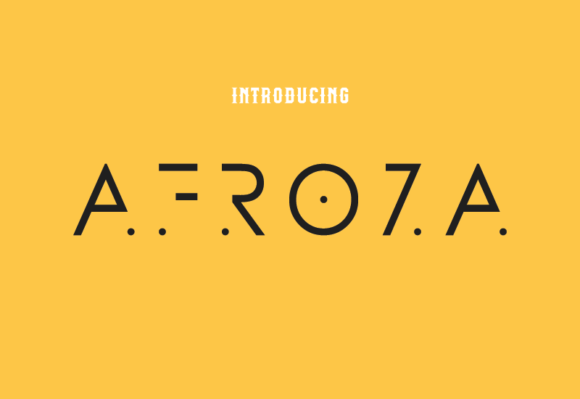
Immerse yourself in the world of Afroza, a sans serif font that's as bold and confident as the creative minds it's designed for. This font is not just a collection of letters; it's a daring dance of contrasts and creativity, a testament to the power of bold decisions. With Afroza, your creative projects will stand out, demanding attention like a masterpiece waiting to be unveiled.
Let the sharp, angular strokes of Afroza captivate your audience, creating a captivating interplay of light and shadow that breathes dynamic energy into every character. Each letter is a testament to the precision and artistry of a master craftsman, sculpted with the same care and attention to detail as a timeless work of art.
With Afroza, you'll find a font that's perfect for unleashing your creative spirit. Its striking visual appeal makes it ideal for logos, branding, headlines, and posters, where you want to make a statement and leave a lasting impression. But that's not all - Afroza is equally at home in body text, adding a touch of sophistication and elegance to your writing.
Whether you're a seasoned designer or just starting out, Afroza is the perfect font to add to your toolkit. Its versatility and charm will make it a go-to choice for a wide range of projects, from professional presentations to personal invitations. Discover the endless possibilities of Afroza and watch your creative vision come to life.
And here's a special bonus: Afroza is the brainchild of the talented GraphicsNinja, known for crafting fonts that are both visually stunning and incredibly functional. By choosing Afroza, you're not just downloading a font; you're investing in a piece of digital art that will elevate your creative projects to new heights.